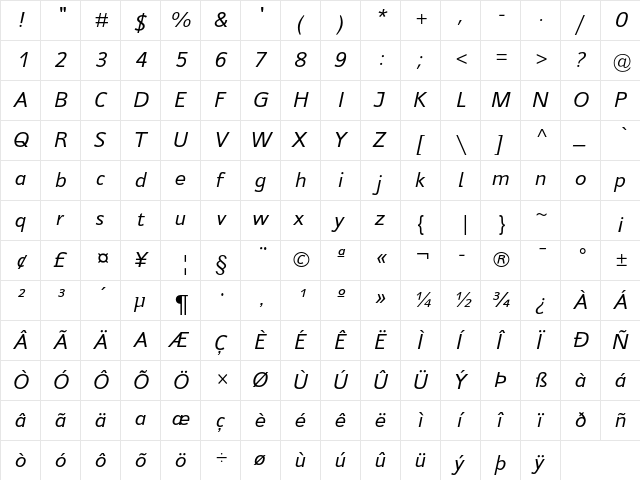
Jeunesse Sans Std Italic
Design Context for Jeunesse Sans Std Typeface
Jeunesse Sans Std takes a measured approach to typography — its balanced proportions and neutral character make it a reliable workhorse for both digital and print work. The dynamic lean of this cut emphasises speed and emphasis in any layout.
Pro Tip: Use Jeunesse Sans Std for emphasis, pull quotes, and subheadings where its slanted energy can add rhythm to the layout.